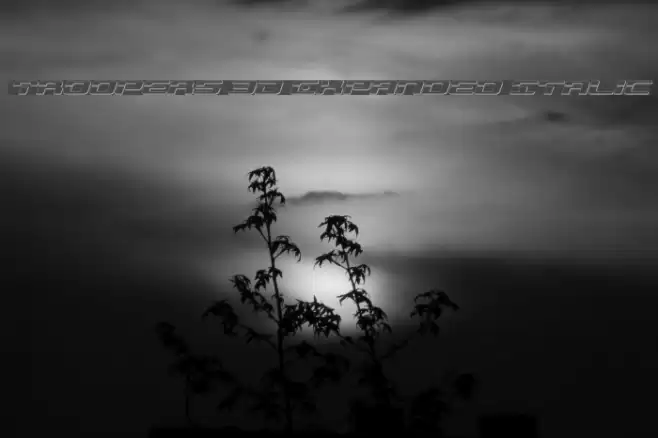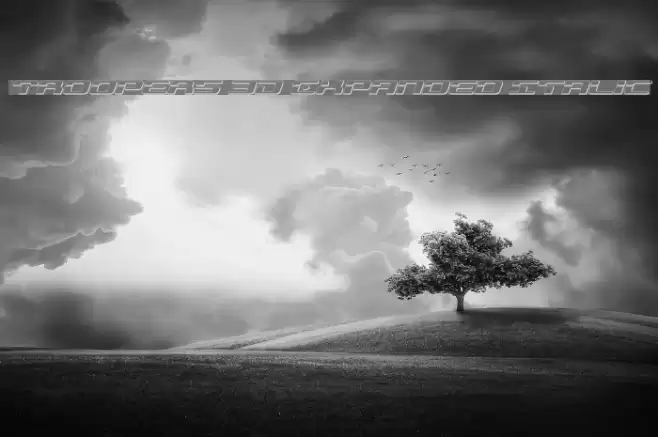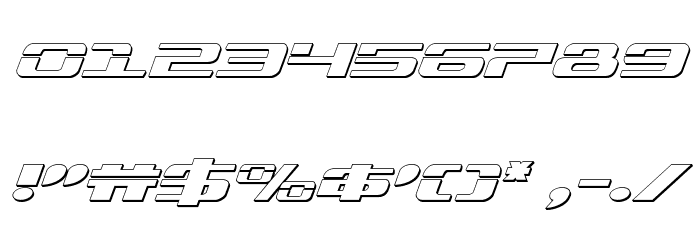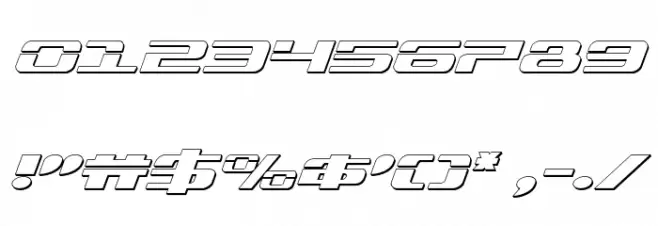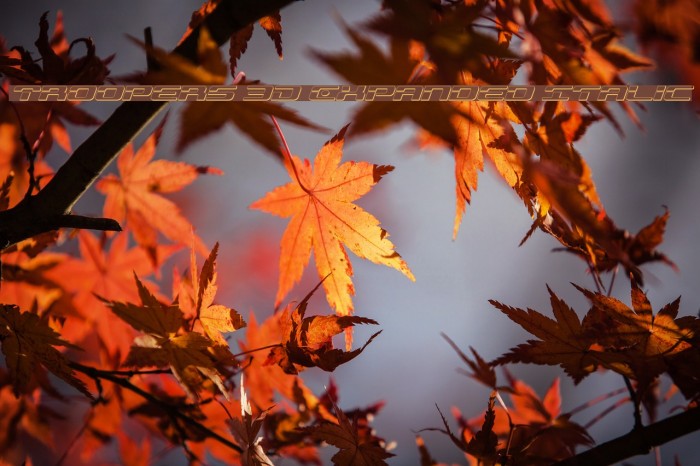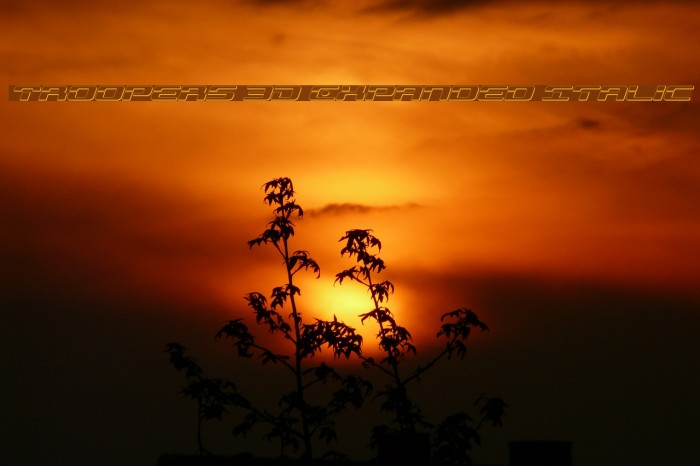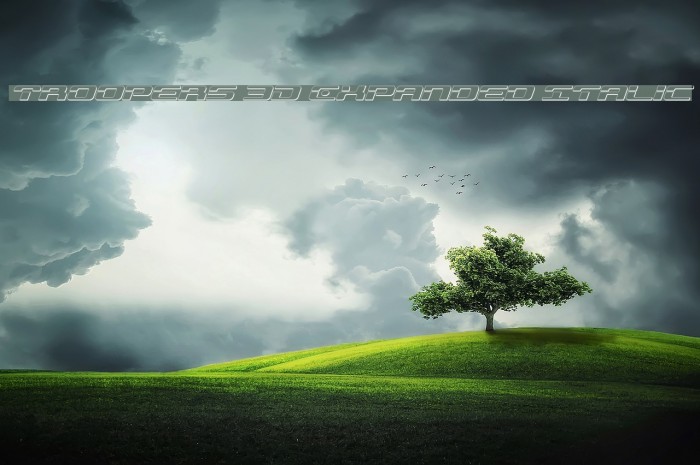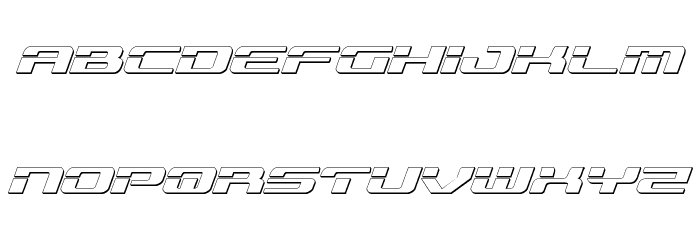
Troopers 3D Expanded Italic Font
Troopers 3D Expanded Italic Description
This font features a bold, futuristic design with a 3D effect that gives it a dynamic and eye-catching appearance. The characters are expanded and italicized, creating a sense of movement and speed. The geometric shapes and sharp angles contribute to its modern and tech-inspired aesthetic. The outline style adds depth and dimension, making it suitable for projects that require a standout, innovative look. Its unique style is perfect for capturing attention in headlines, posters, and branding materials.
A bold, 3D, expanded italic font with a futuristic and dynamic design from Uncategorized fonts.
- Proposed Projects: Ideal for sci-fi themed projects, tech branding, video game titles, and futuristic posters.
- Overall Style: Futuristic